Graffiti Font Bundle Vol 3
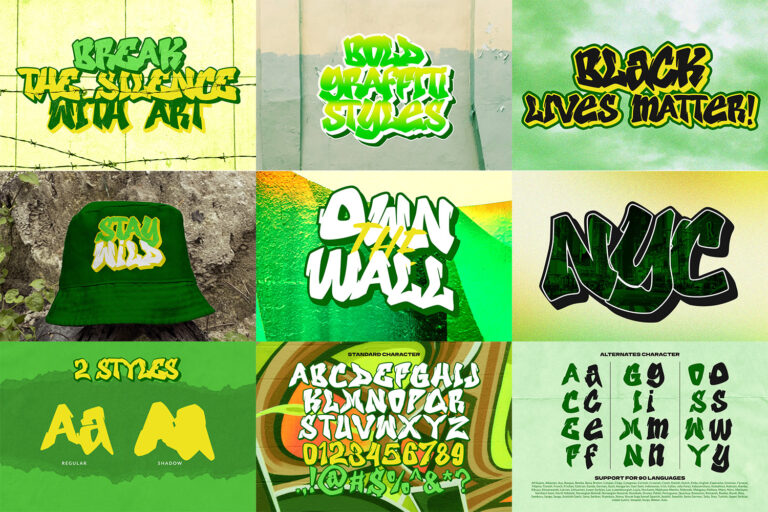
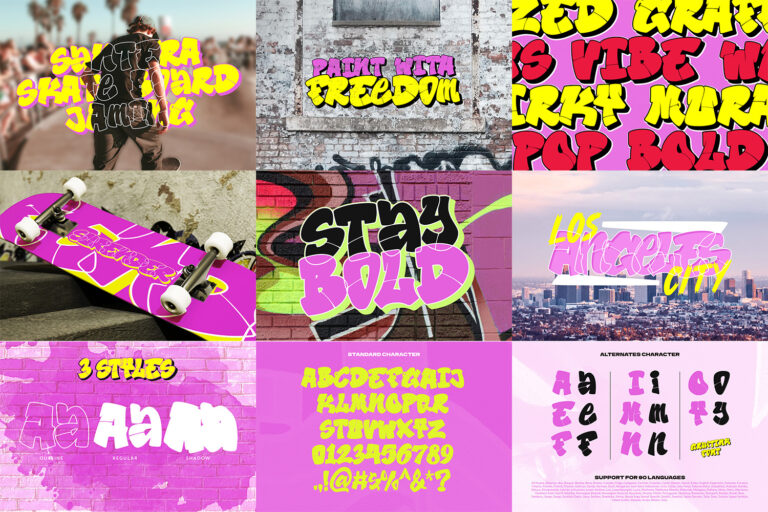
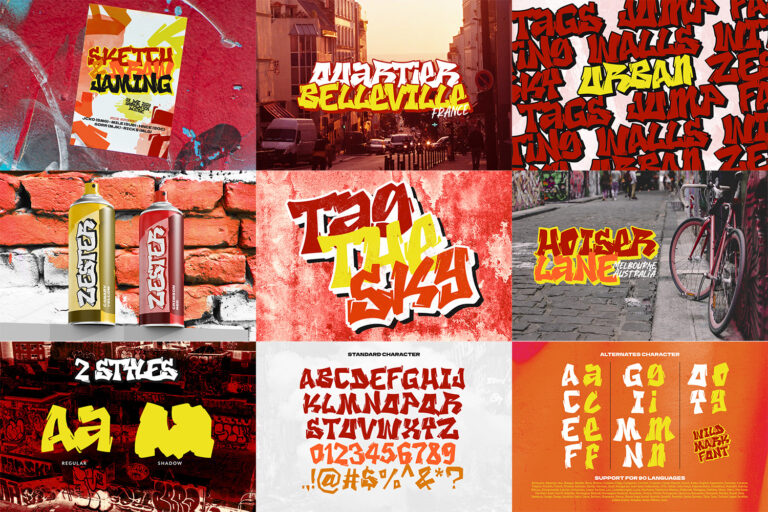
Hello, Everyone! Introducing Graffiti Font Bundle Vol 3.
Graffiti Font Bundle Vol 3 is a dynamic collection of 10 unique graffiti-inspired fonts, each bursting with bold creativity and street-style energy. Perfectly curated to capture the essence of urban art, this bundle showcases a diverse range of graffiti styles—from edgy and angular to smooth and flowing. Whether you’re designing for posters, streetwear, branding, or digital art, these fonts bring a raw, expressive vibe to your projects.
The fonts include full set of character and glyph and it also includes Multilingual Supports to help you reach a global audience. See the previews above to get some inspiration on how you can use them.
Fonts include are :